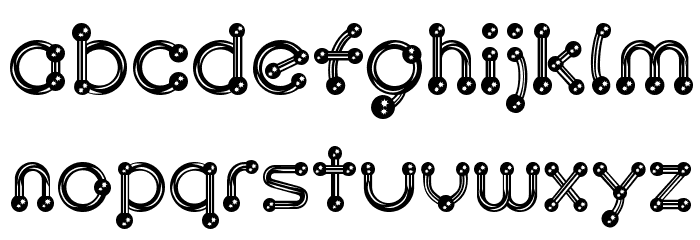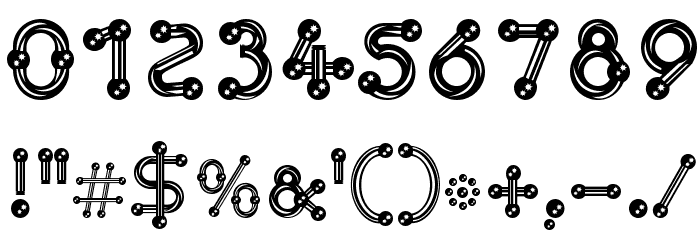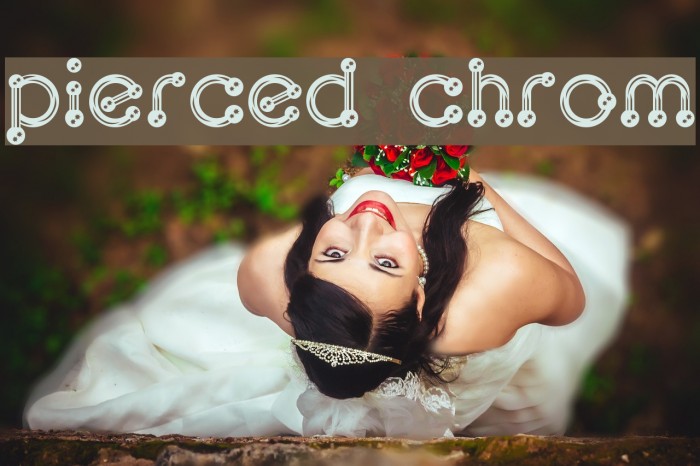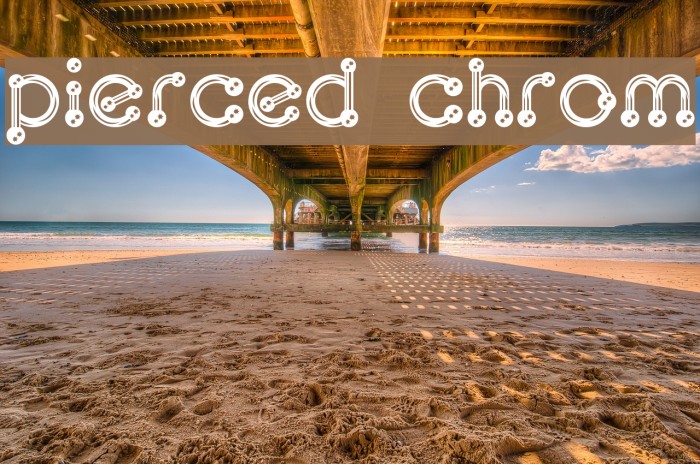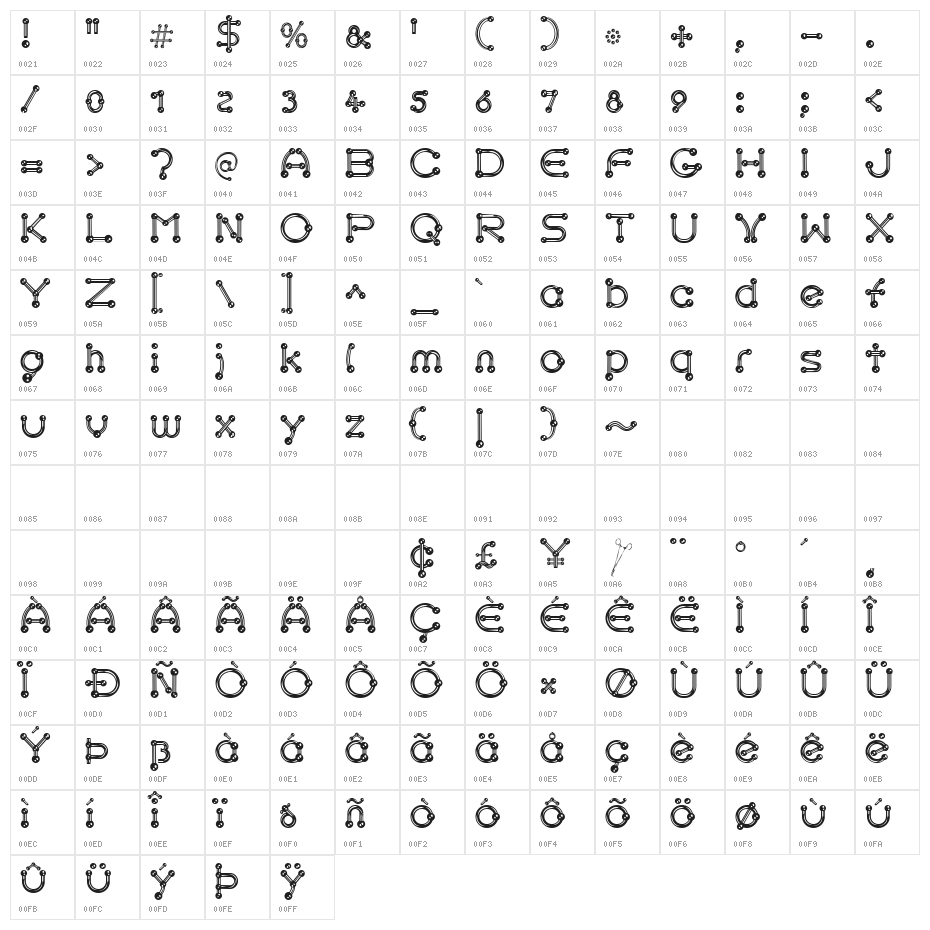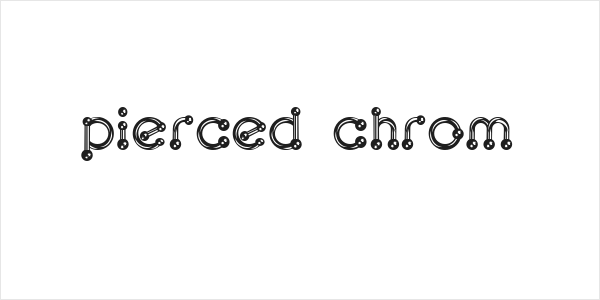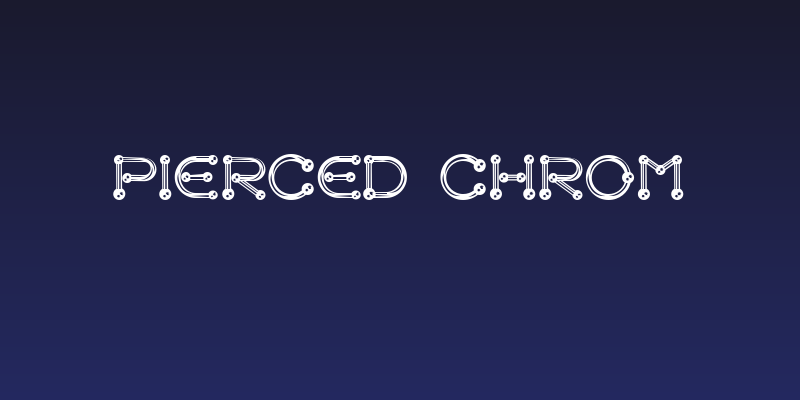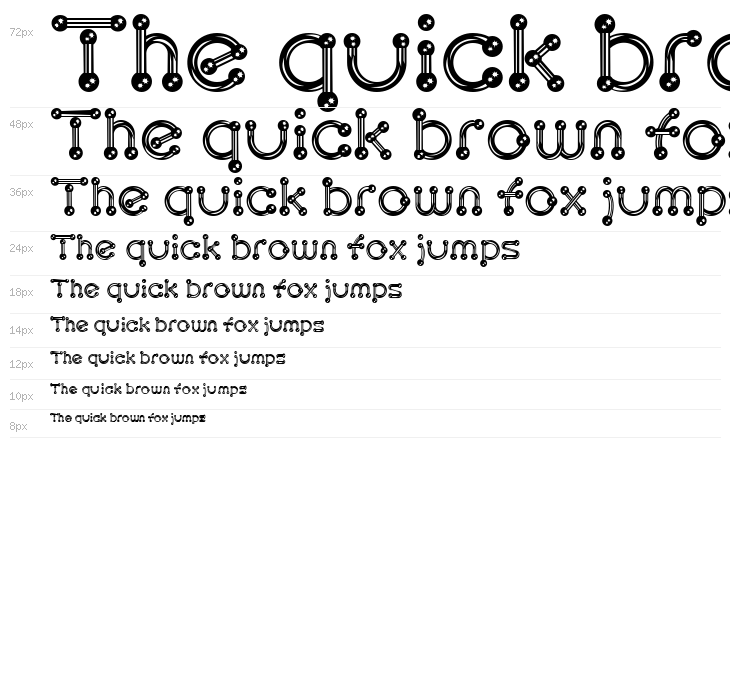
pierced chrom Font
This font features a unique and decorative style, characterized by its bold, interconnected lines and circular nodes that resemble a pierced or mechanical structure. The letters are constructed with a series of dots and lines, giving it a futuristic and industrial appearance. The uppercase and lowercase letters maintain a consistent design theme, with numbers and special characters following suit. The overall look is striking and modern, making it suitable for creative and eye-catching designs.
A bold, decorative font with interconnected lines and circular nodes, offering a futuristic look.
- Proposed Projects: Ideal for sci-fi themed projects, tech branding, posters, and creative digital artwork.
- Overall Style: Modern, Futuristic